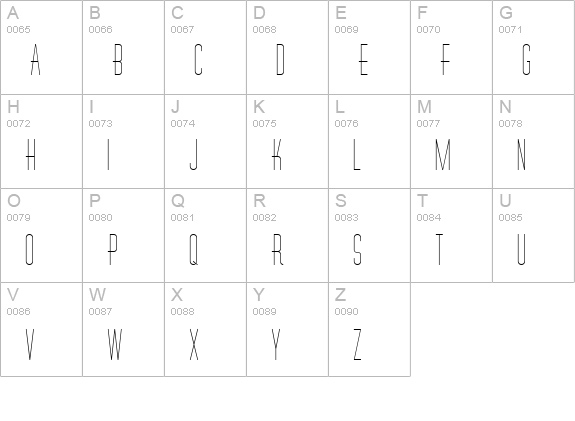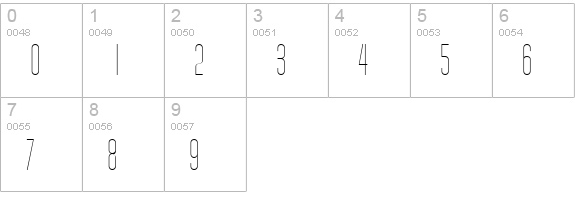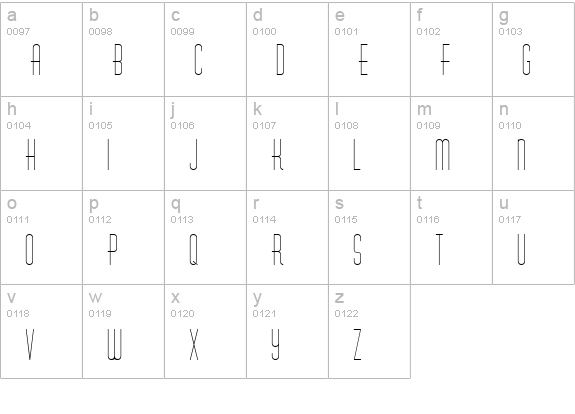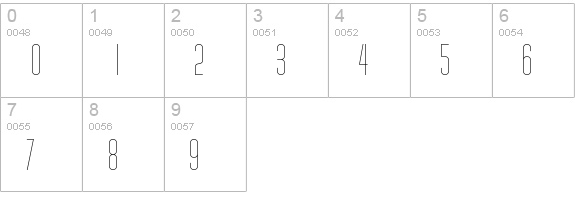
Melanin Regular Font Details
Melanin Regular is the standard, neutral variant in the Melanin typeface family \xE2\x80\x94 well suited to general body text, paragraphs, and standard typographic work.
Introducing Melanin Regular font, a sleek and modern typeface designed to make your projects stand out. With its clean lines and contemporary feel, Melanin Regular is perfect for a wide range of design applications, from branding to web design. This versatile font is easy to read and can add a touch of sophistication to any project. The best part? Melanin Regular is completely free to download at FontsMarket.com. So whether you're working on a personal project or a client's design, you can access this stylish font without any cost. Don't miss out on the opportunity to elevate your designs with Melanin Regular - download it today and start creating stunning visuals with ease.